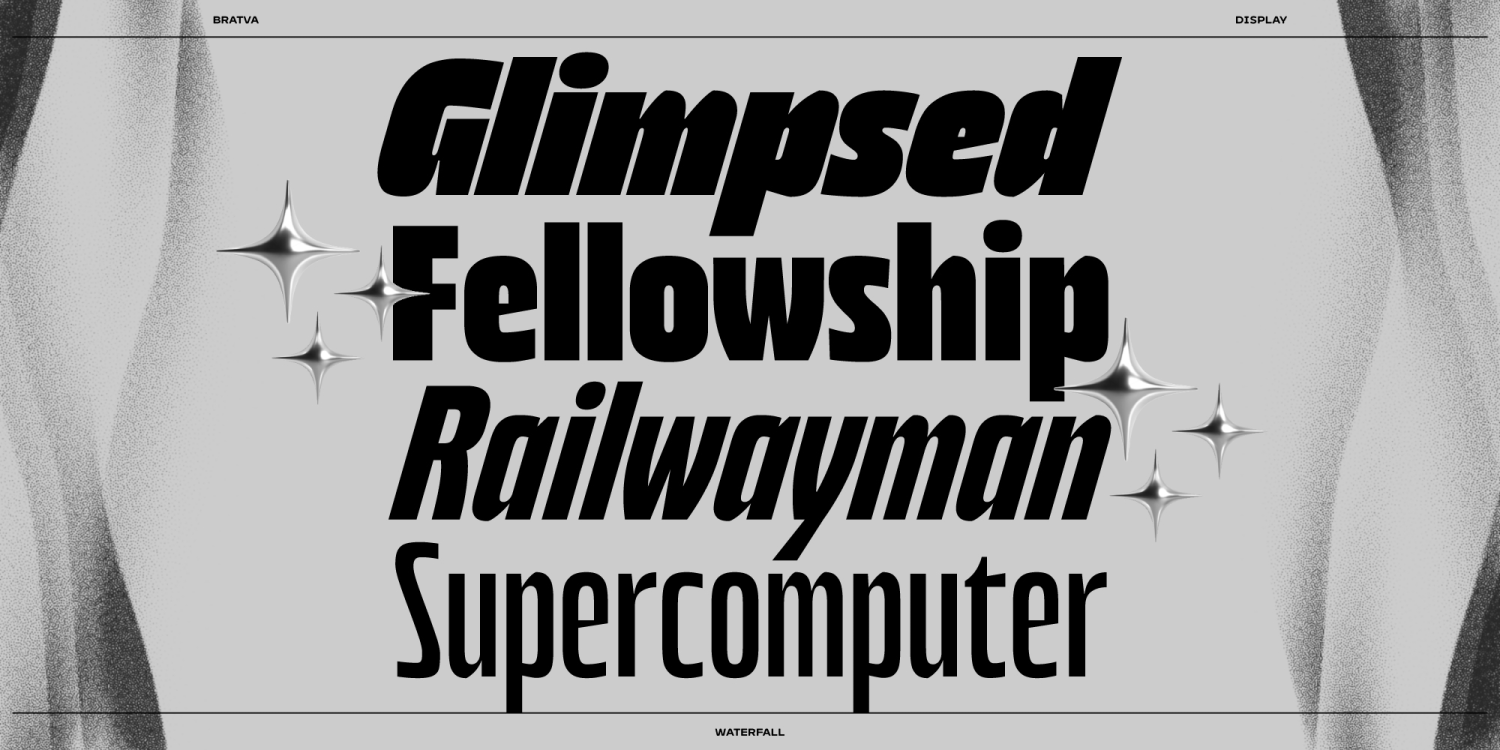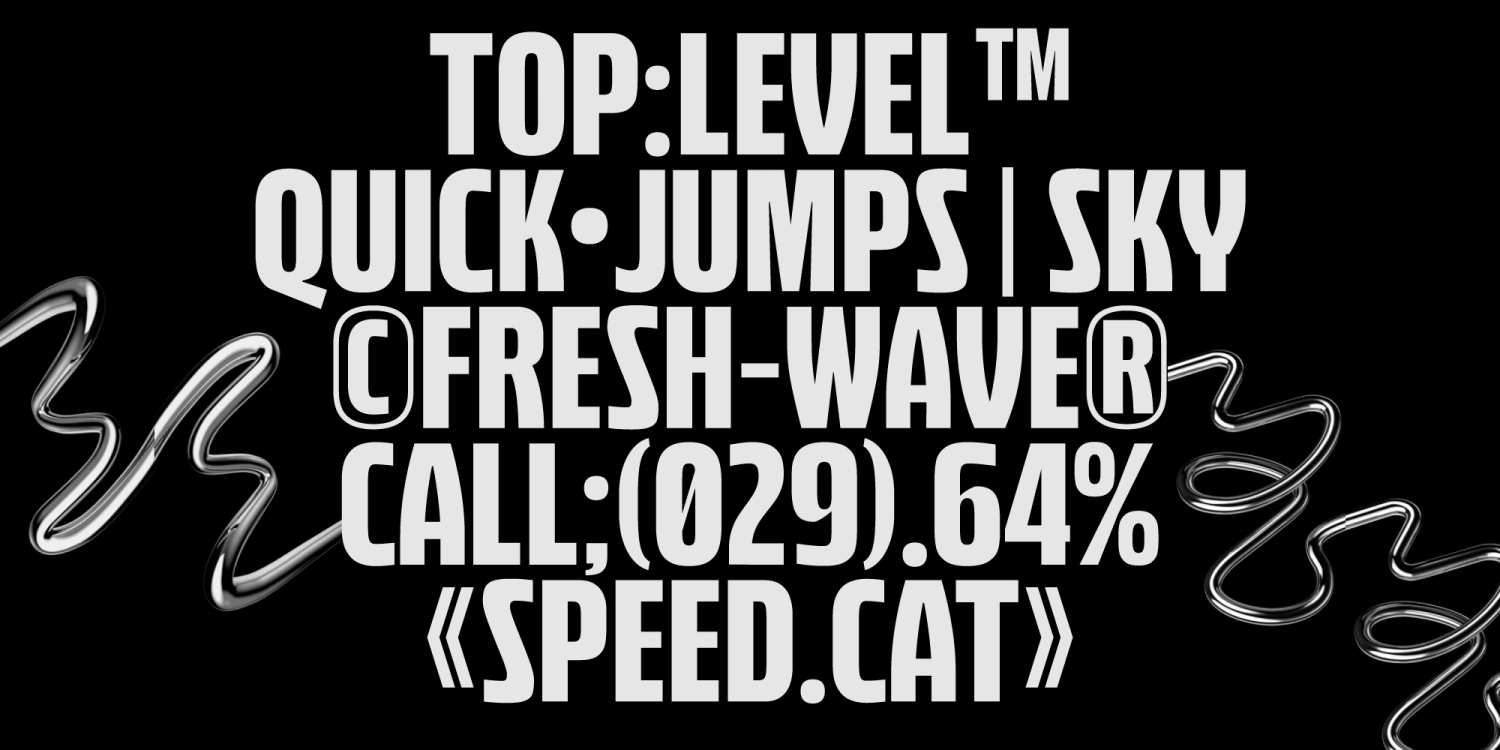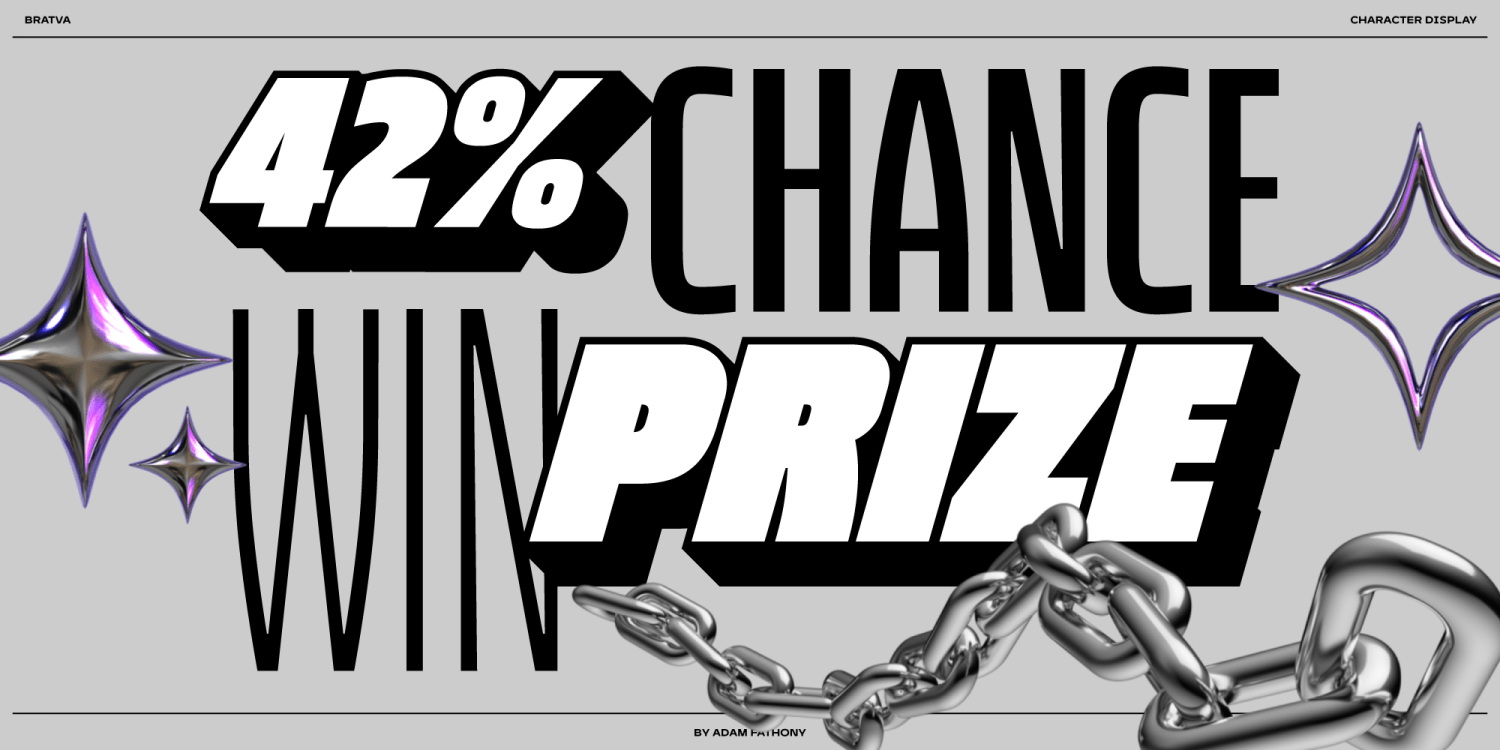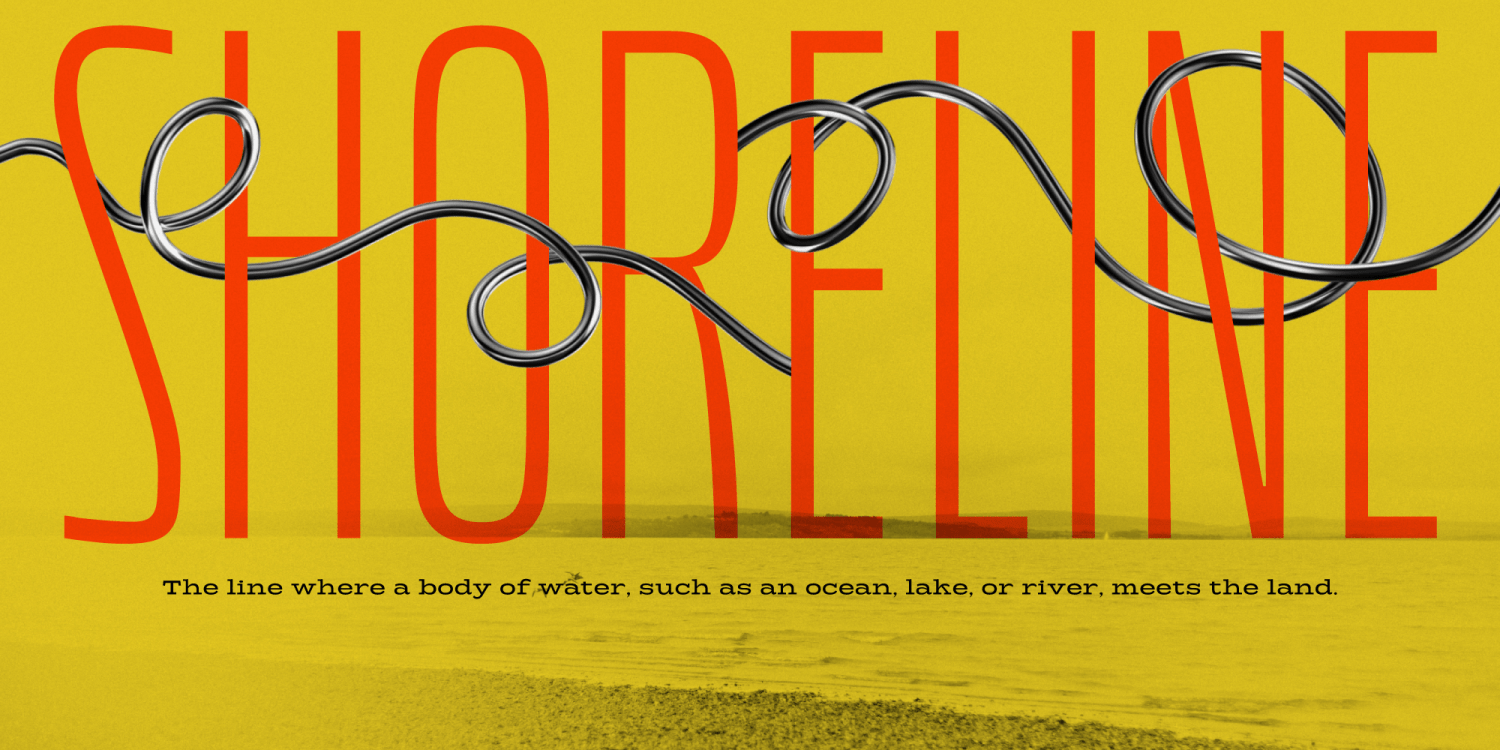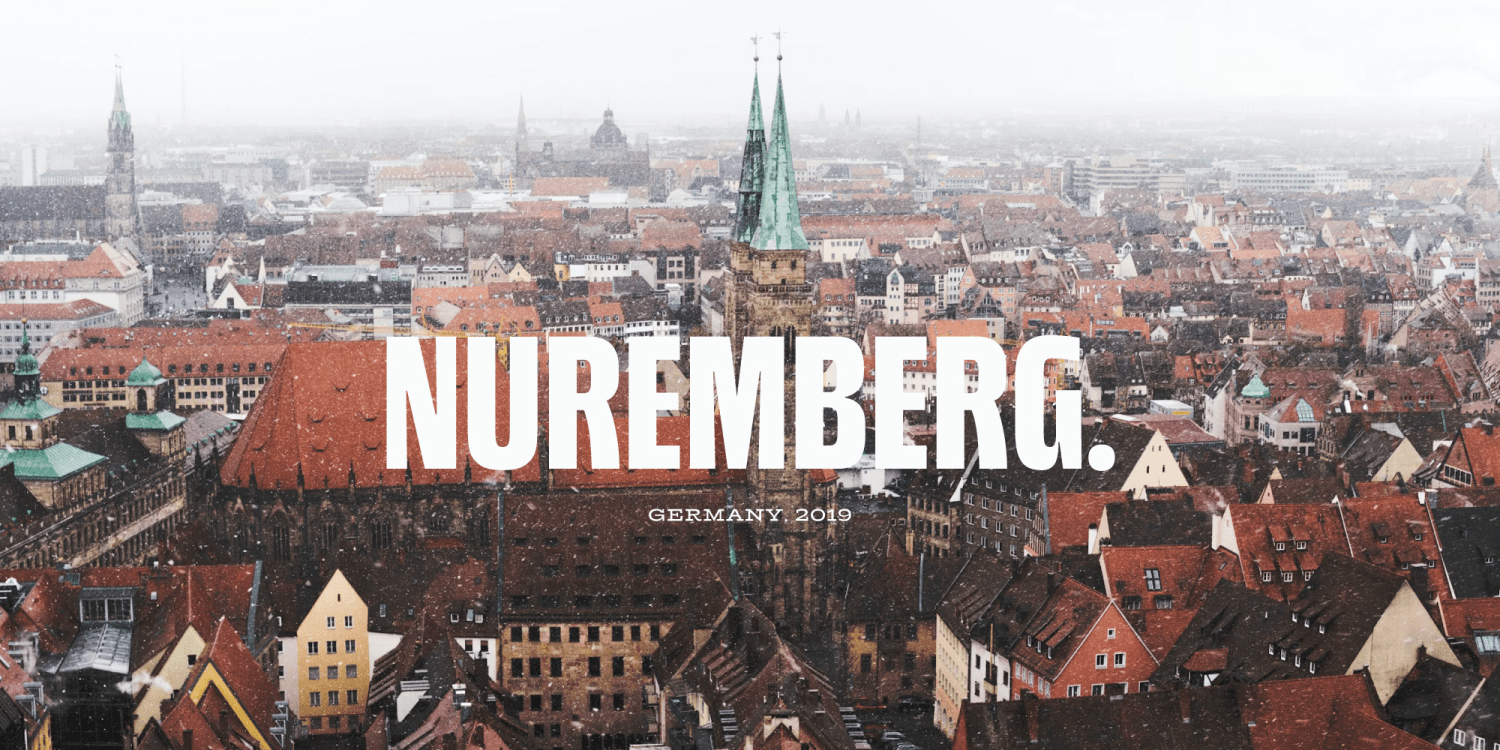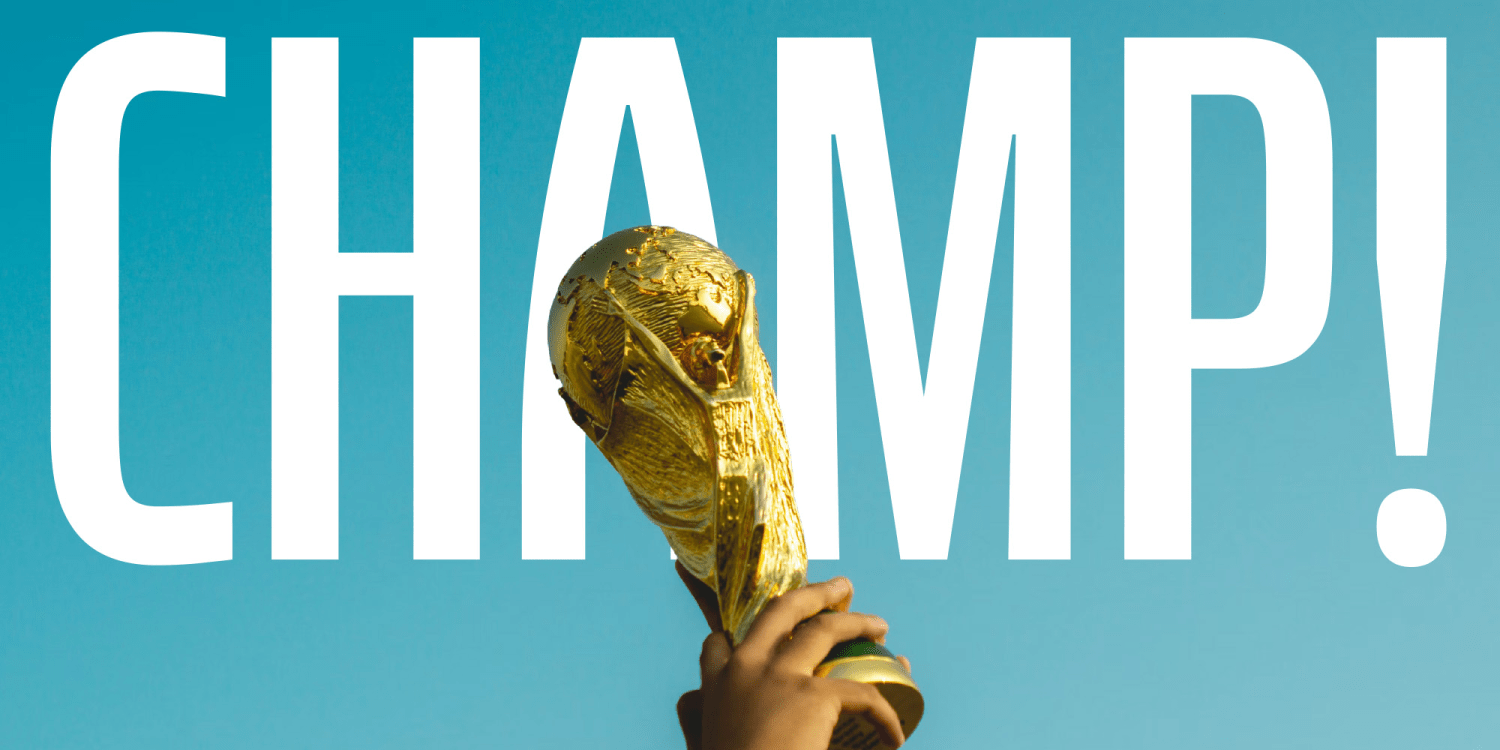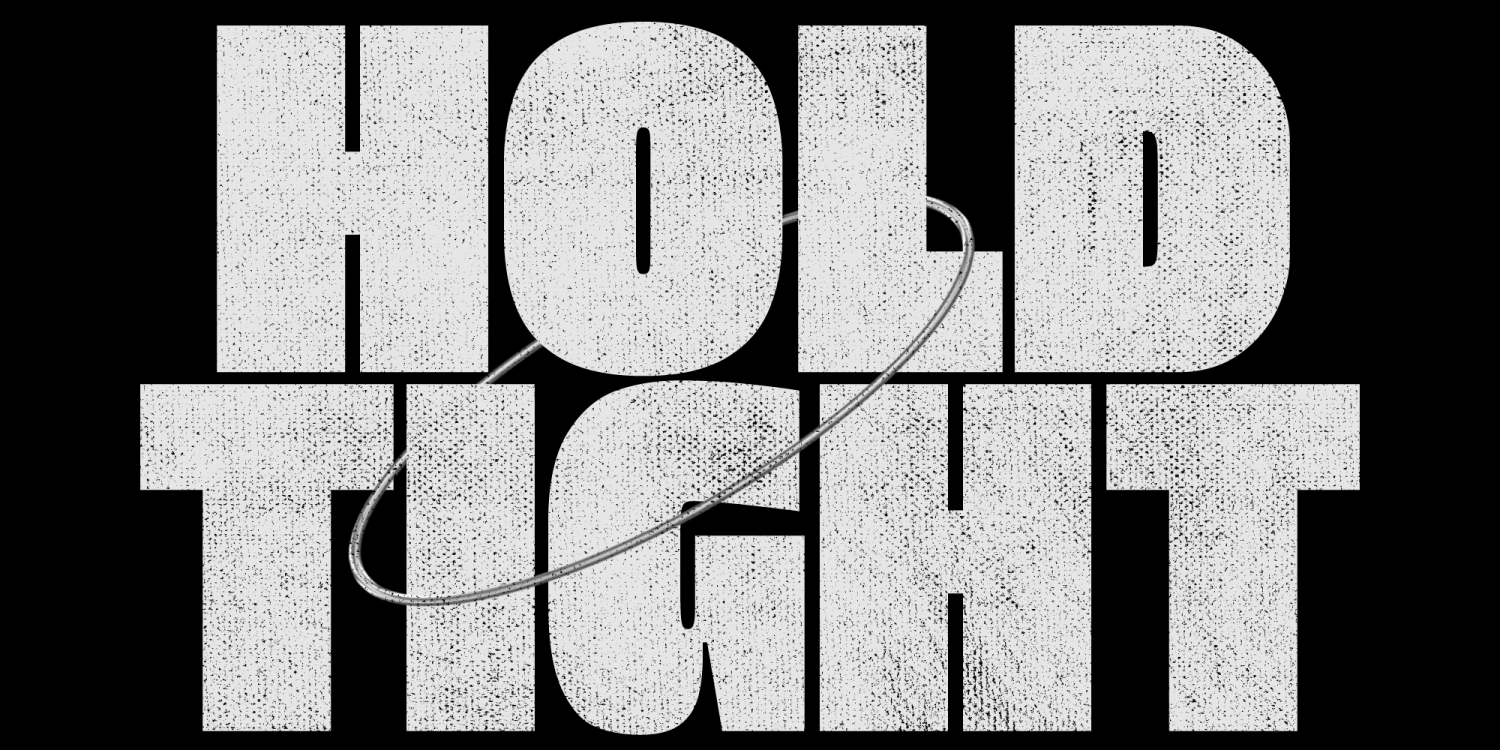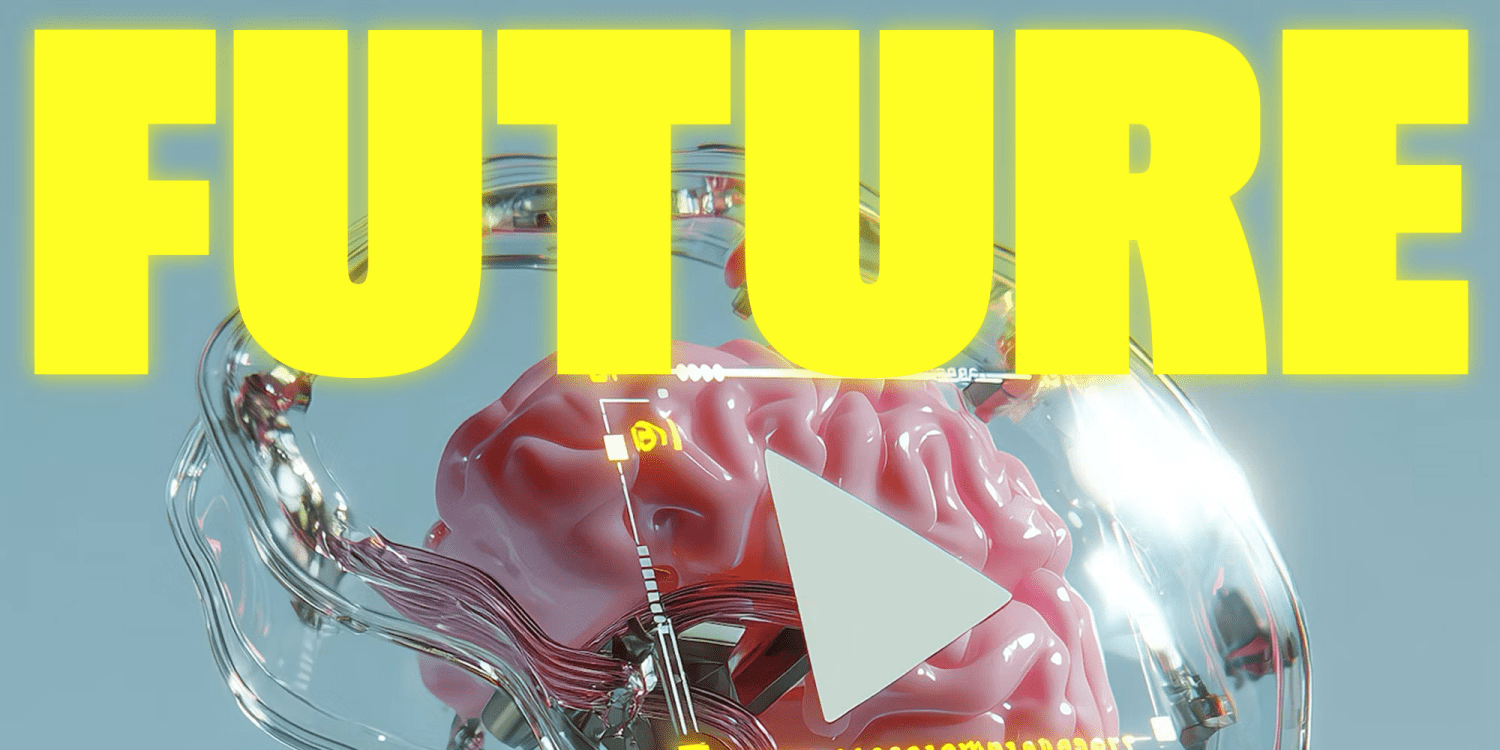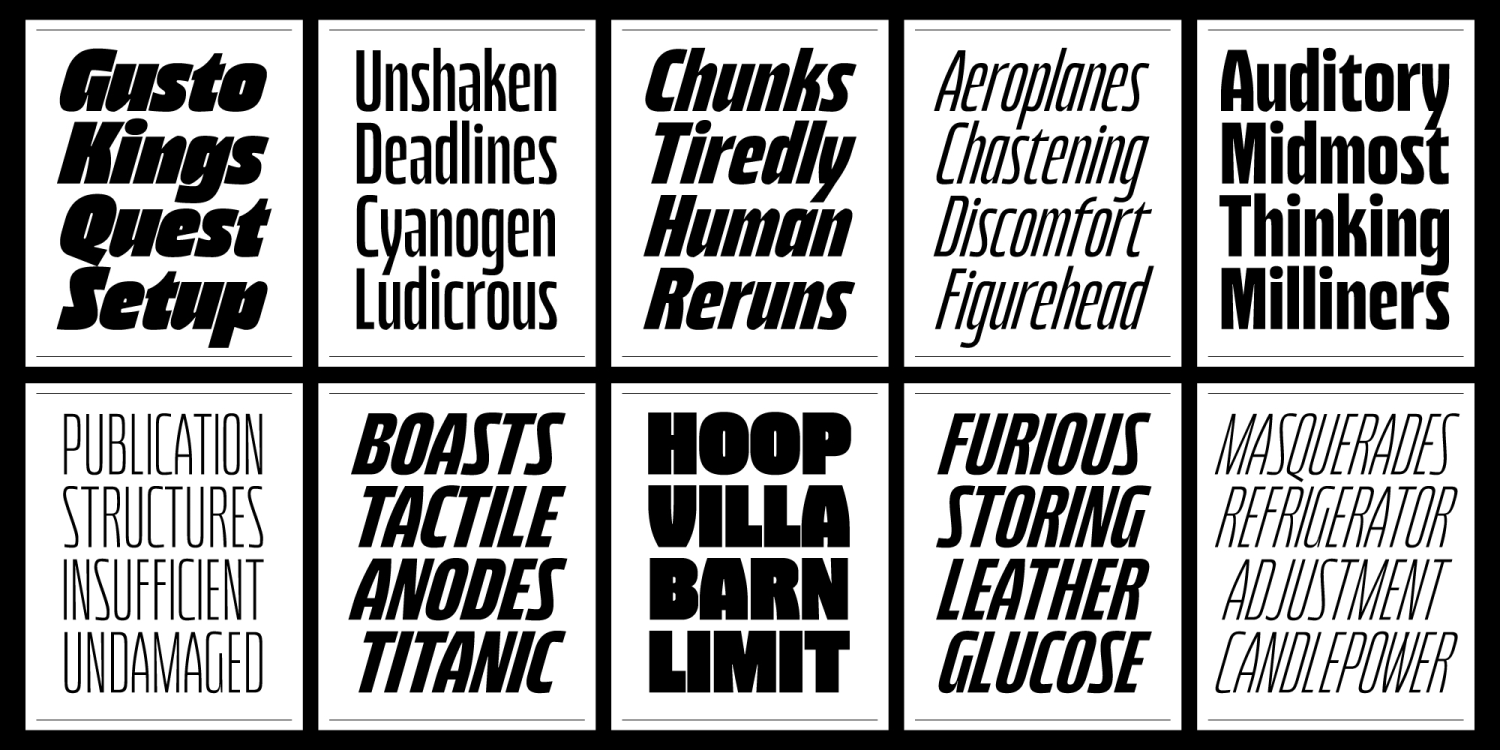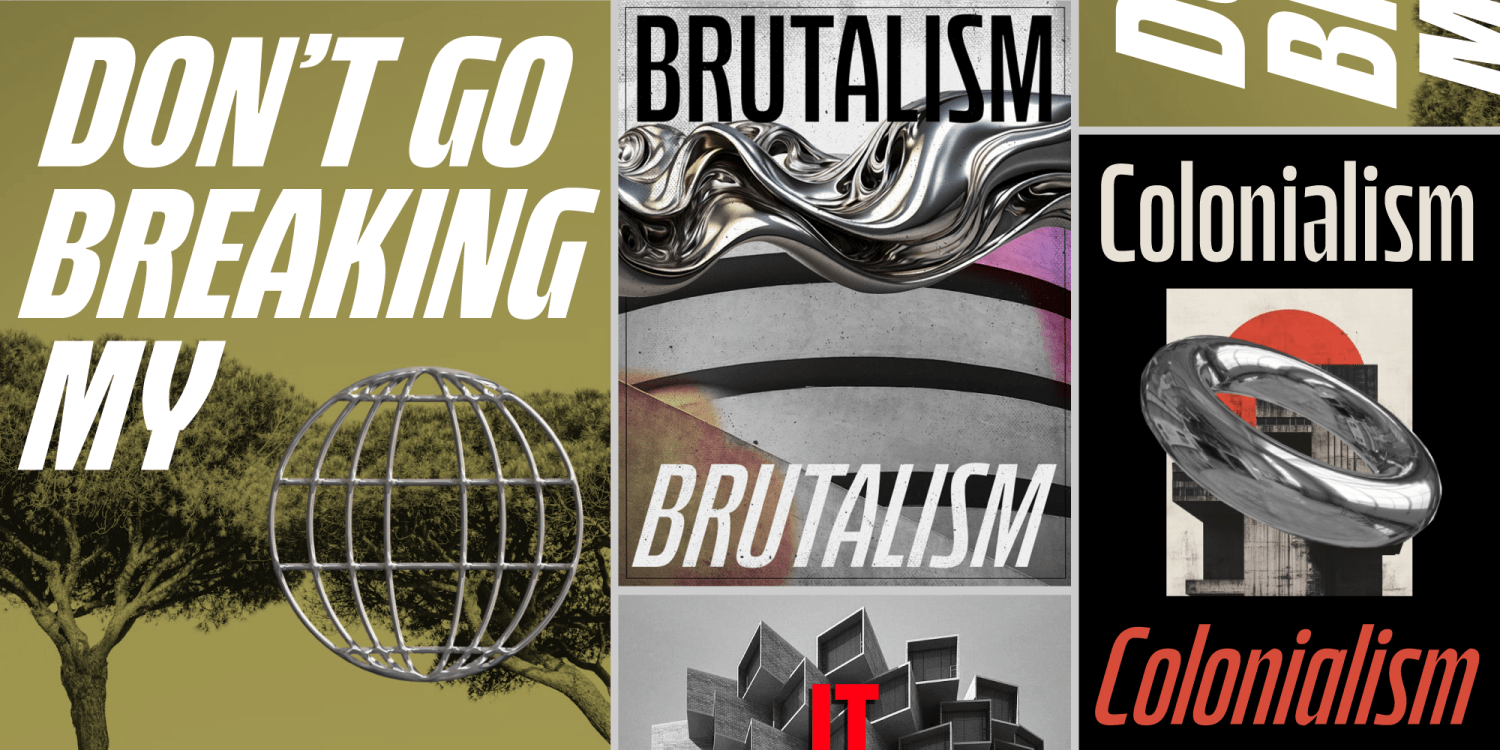
Bratva
Bratva is a bold variable display typeface built for loud headlines, poster design, sports graphics, and brutalist layouts. Packed with keywords like modern, strong, narrow, heavy, upright, and slanted styles, it’s perfect for attention-grabbing titles and energetic branding.
Use Bratva for posters, album covers, esports and streetwear logos, editorial spreads, motion graphics, and social media campaigns. Pair it with a clean geometric sans for body text, a simple grotesk for UI, or a minimal monospaced font for captions to create high-impact, contemporary typography combinations.